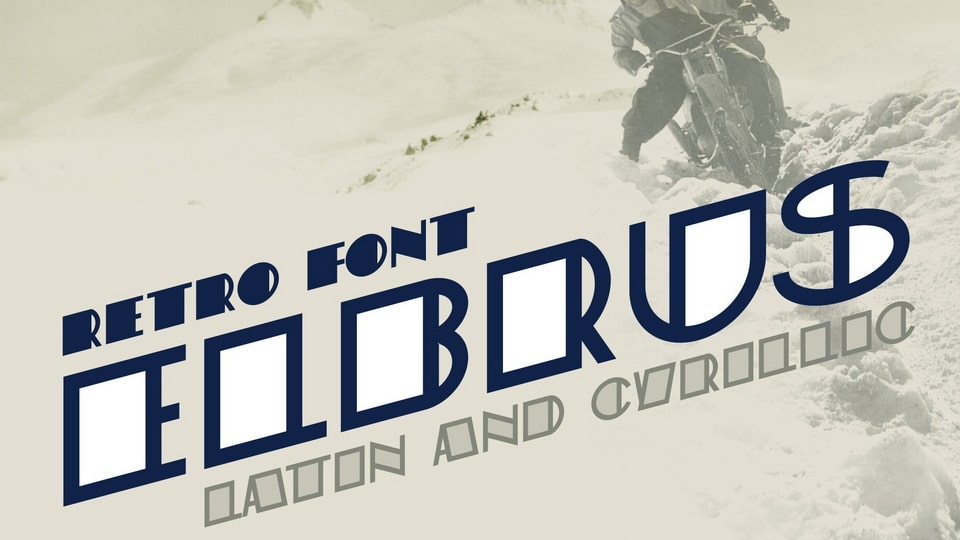
Download ST-Elbrus font, the replica of Soviet magazine lettering from magazine article about conquering the mount Elbrus by the motorcycles. ST-Elbrus font is good for headlines, large-format print, branding, posters, fashion designs and logotypes.
Designer: Alexander Shimanov